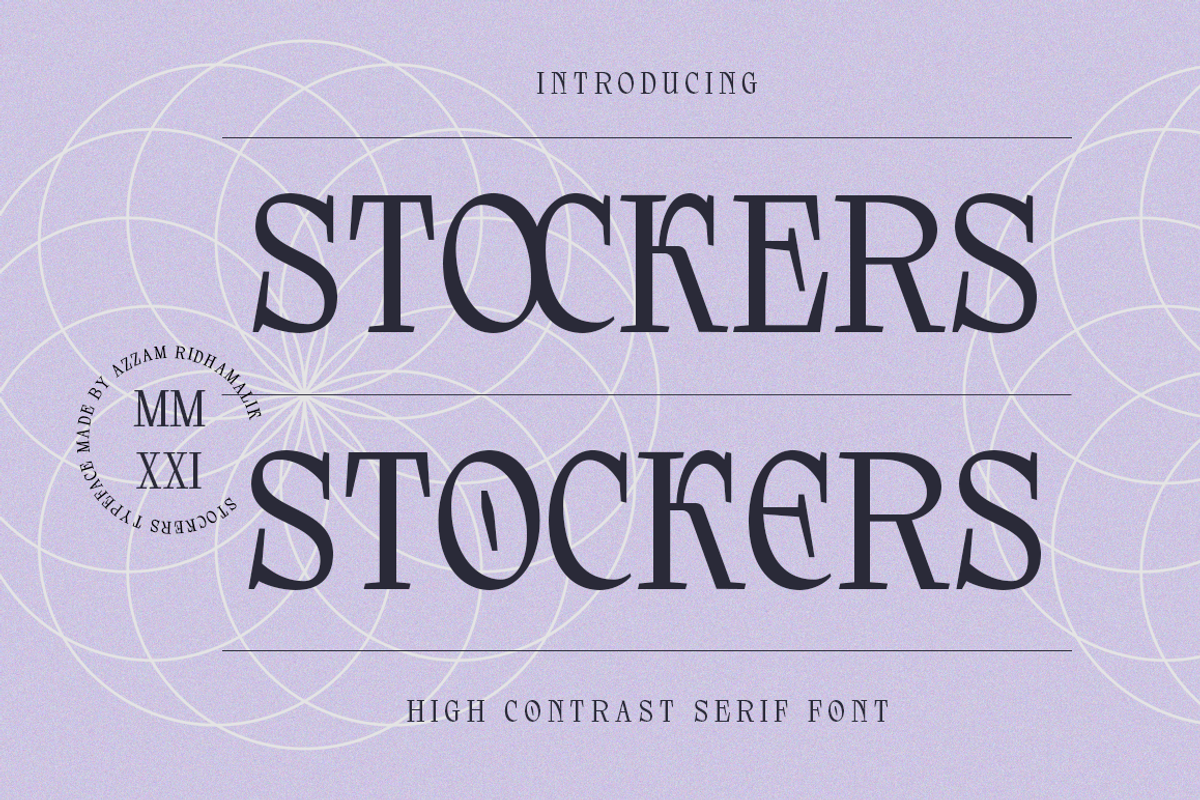
Stockers Serif Font Free Download is a bold and contemporary serif typeface designed to make a strong impression. With its clean lines, sharp serifs, and modern geometric influences, Stockers is perfect for editorial layouts, branding, logos, packaging, and headlines that demand attention.
This versatile font combines classic serif elegance with a modern edge, making it suitable for both formal and casual projects. Whether you're designing for a luxury brand or a creative venture, Stockers offers clarity and visual strength in every letter.